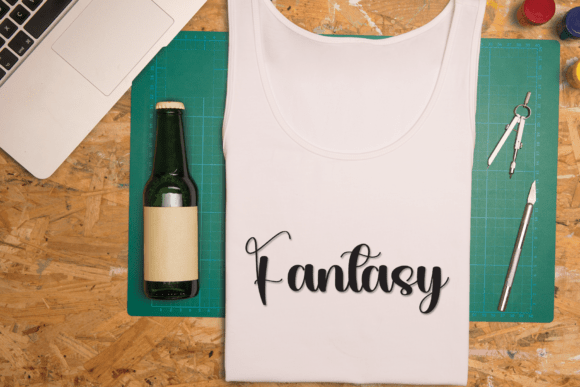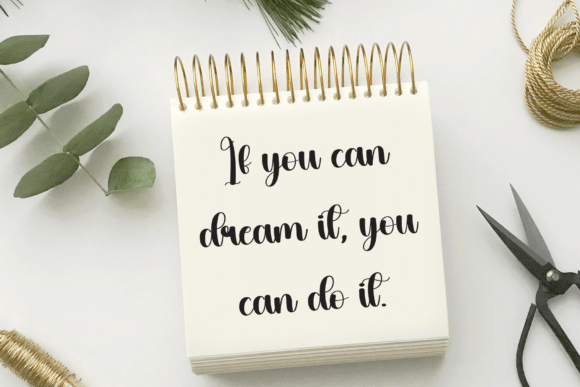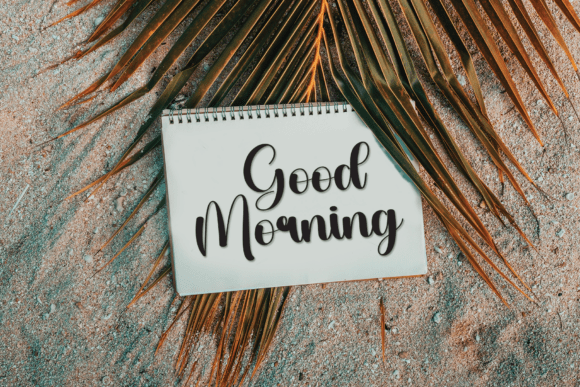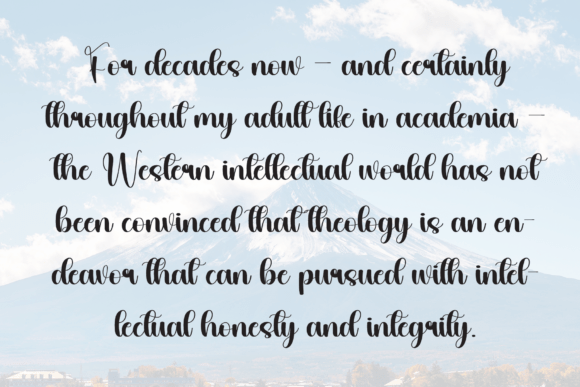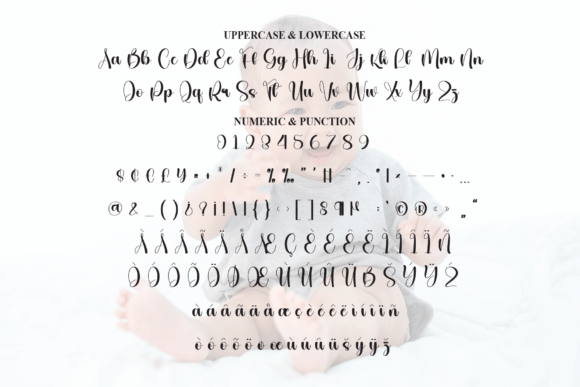
Babyboy Font: The Ultimate Handwritten Font for Whimsical Designs
Are you looking for a font that can add a touch of charm and playfulness to your designs? Look no further than the Babyboy Font! This endearingly delightful handwritten font is perfect for crafty designers and DIY enthusiasts who want to infuse their projects with a sense of whimsy and joy. In this article, we’ll explore the features and benefits of the Babyboy Font, and show you how to use it to take your designs to the next level.
What is Babyboy Font?
Babyboy Font is a beautifully crafted handwritten font that is designed to evoke a sense of warmth and playfulness. Its quirky and charming characters are perfect for creating eye-catching designs that are sure to delight. Whether you’re designing wedding invitations, greeting cards, or social media graphics, this font is sure to add a touch of personality and whimsy to your projects.
Key Features of Babyboy Font
- Handwritten style: Babyboy Font is a carefully crafted handwritten font that mimics the look and feel of handwritten text.
- Playful and whimsical: This font is designed to add a touch of playfulness and whimsy to your designs, making it perfect for projects that require a lighthearted touch.
- Charming and endearing: The Babyboy Font has a charming and endearing quality that makes it perfect for creating designs that are affectionate and personal.
- Easy to read: Despite its playful nature, the Babyboy Font is easy to read and understand, making it perfect for use in a variety of design projects.
Uses for Babyboy Font
The Babyboy Font is a versatile font that can be used in a wide range of design projects, including:
- Wedding invitations: Add a touch of whimsy and romance to your wedding invitations with the Babyboy Font.
- Greeting cards: Create personalized and playful greeting cards for special occasions like birthdays, anniversaries, and holidays.
- Social media graphics: Use the Babyboy Font to create eye-catching social media graphics that are sure to delight your followers.
- DIY crafts: Add a personal touch to your DIY crafts, such as scrapbooking, journaling, and card making, with the Babyboy Font.
Tips for Using Babyboy Font
Here are some tips for getting the most out of the Babyboy Font:
- Pair with complementary fonts: Pair the Babyboy Font with complementary fonts to create visual interest and add depth to your designs.
- Experiment with colors: Try out different colors and color combinations to find the perfect match for your design.
- Use in combination with graphics: Use the Babyboy Font in combination with graphics and illustrations to create visually appealing designs.
- Keep it simple: Don’t be afraid to keep your design simple and clean, allowing the Babyboy Font to take center stage.
In conclusion, the Babyboy Font is a delightful handwritten font that is perfect for designers and crafters who want to add a touch of whimsy and playfulness to their projects. With its charming and endearing characters, this font is sure to delight and inspire. Whether you’re designing wedding invitations, greeting cards, or social media graphics, the Babyboy Font is a great choice for anyone looking to add a personal touch to their designs.